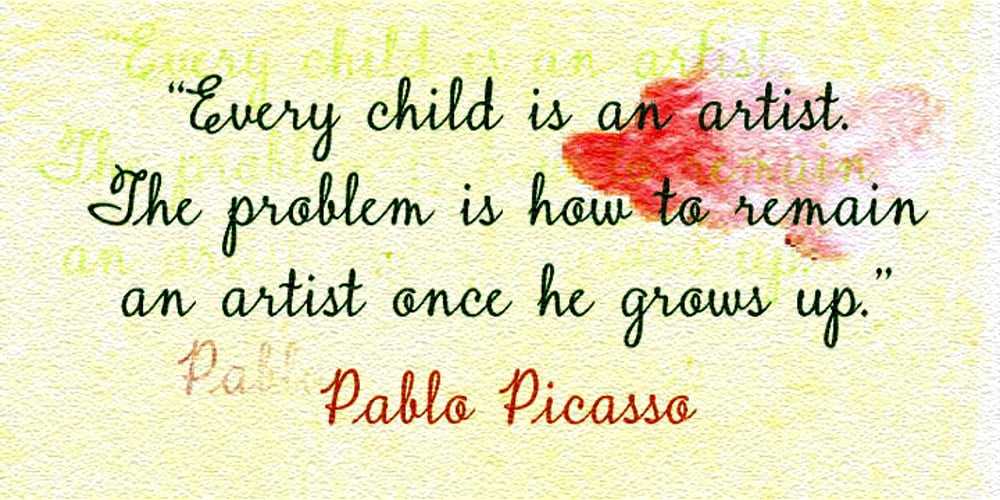
Lelet Script
Lelet Script font
Lelet Script Font Family was designed by Azelea Rodgers and published by aRc. Lelet Script contains 1 styles and family package options. Lelet Script is a TrueType font inspired by my mother’s exquisite handwriting. It has a graceful, smooth look that makes it very legible for any project.